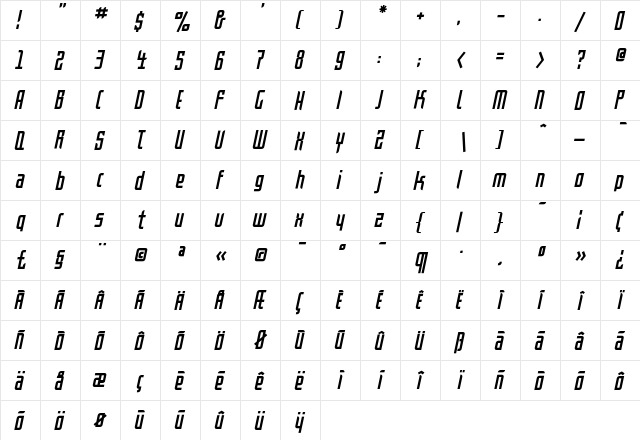
FFRosetta-Italic Regular
Design Context for FFRosetta-Italic Typeface
FFRosetta-Italic offers clean, dependable letterforms without strong stylistic allegiance, making it a practical choice for designers who need flexibility. Its italic angle brings a sense of urgency and motion to the letterforms.
Pro Tip: Try FFRosetta-Italic for annotation and caption copy alongside an upright companion — the contrast in angle creates a dynamic but ordered typographic system.